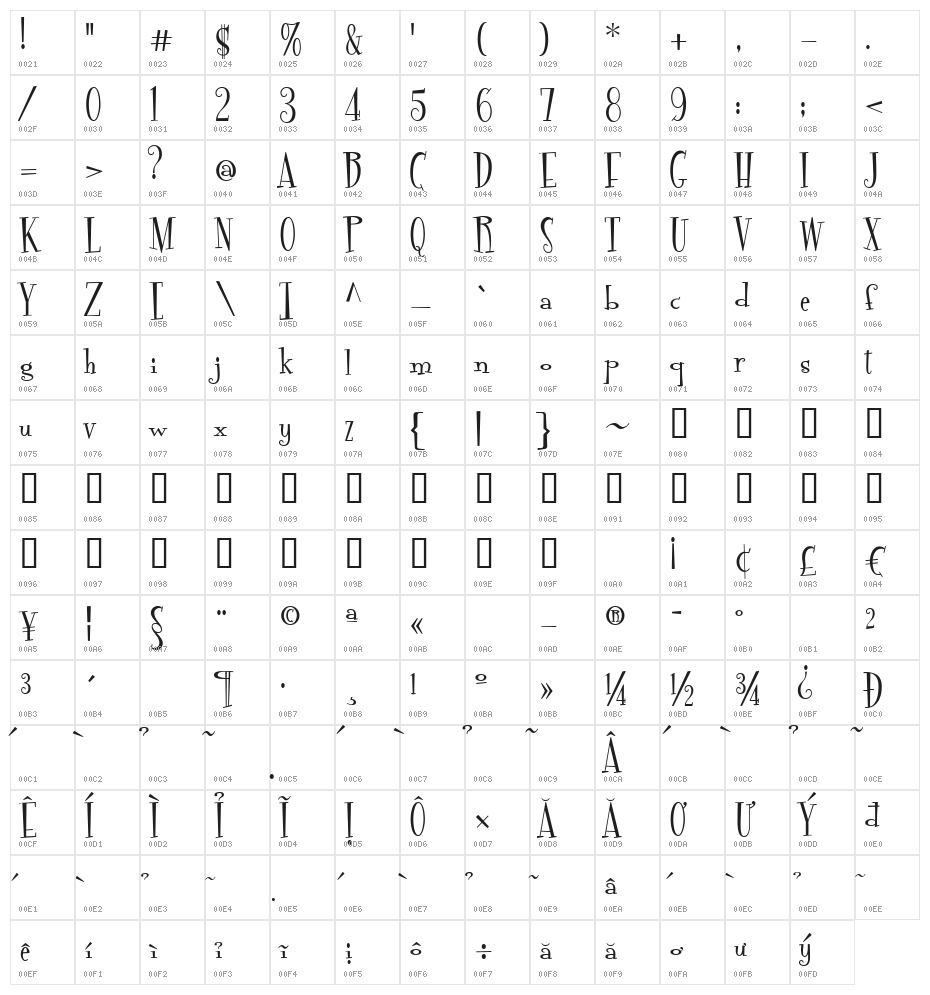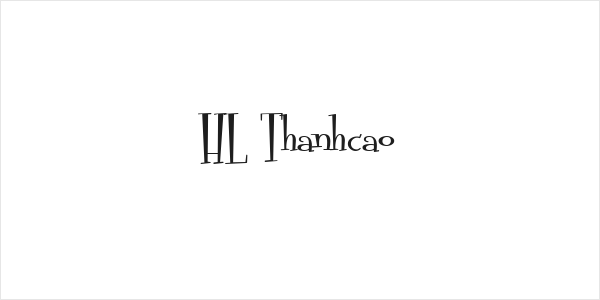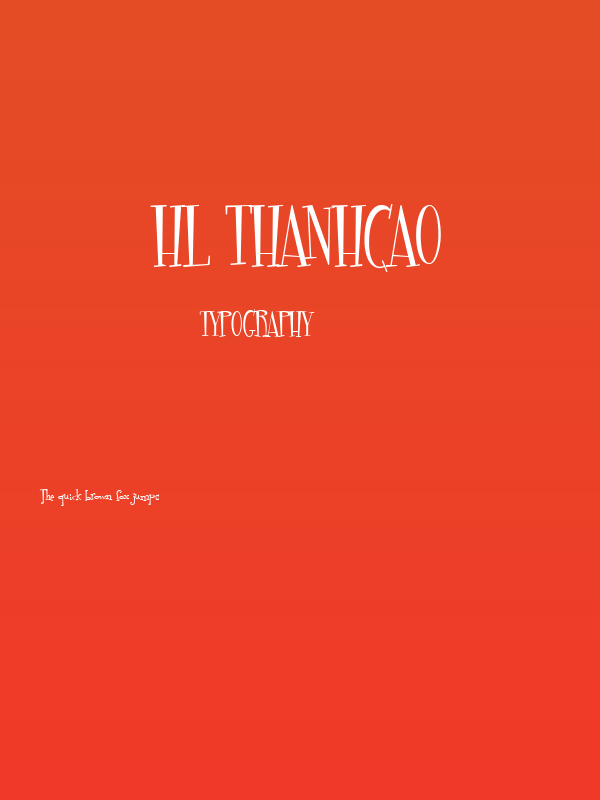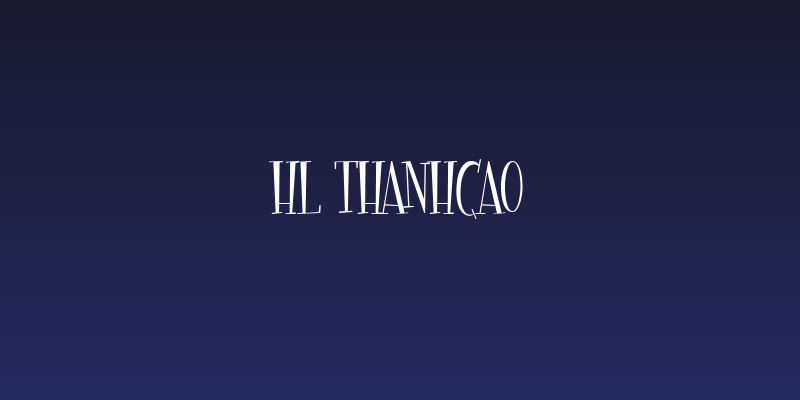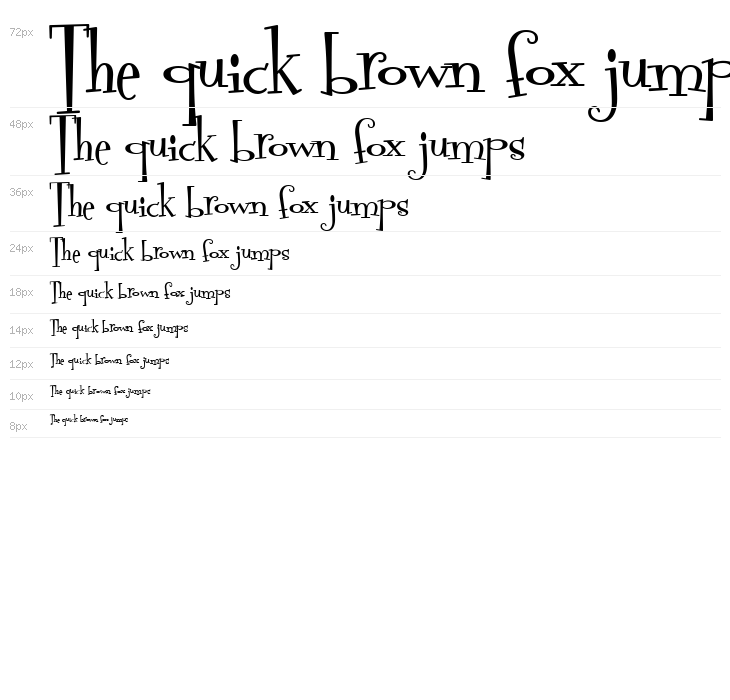
HL Thanhcao Font
HL Thanhcao Description
This font features a unique blend of tall, narrow characters with a whimsical, playful flair. The uppercase letters are elongated with a slight curvature, giving them a distinctive and artistic appearance. The lowercase letters maintain a similar style, with some characters exhibiting a slight slant or curl, adding to the font's charm. The numbers are consistent with the overall design, featuring the same tall and narrow structure. Special characters are creatively styled, maintaining the font's playful and artistic theme. This font's overall look is both elegant and quirky, making it stand out in any design project.
| Proposed Projects | Ideal for creative projects such as posters, invitations, and branding that require a playful yet elegant touch. |